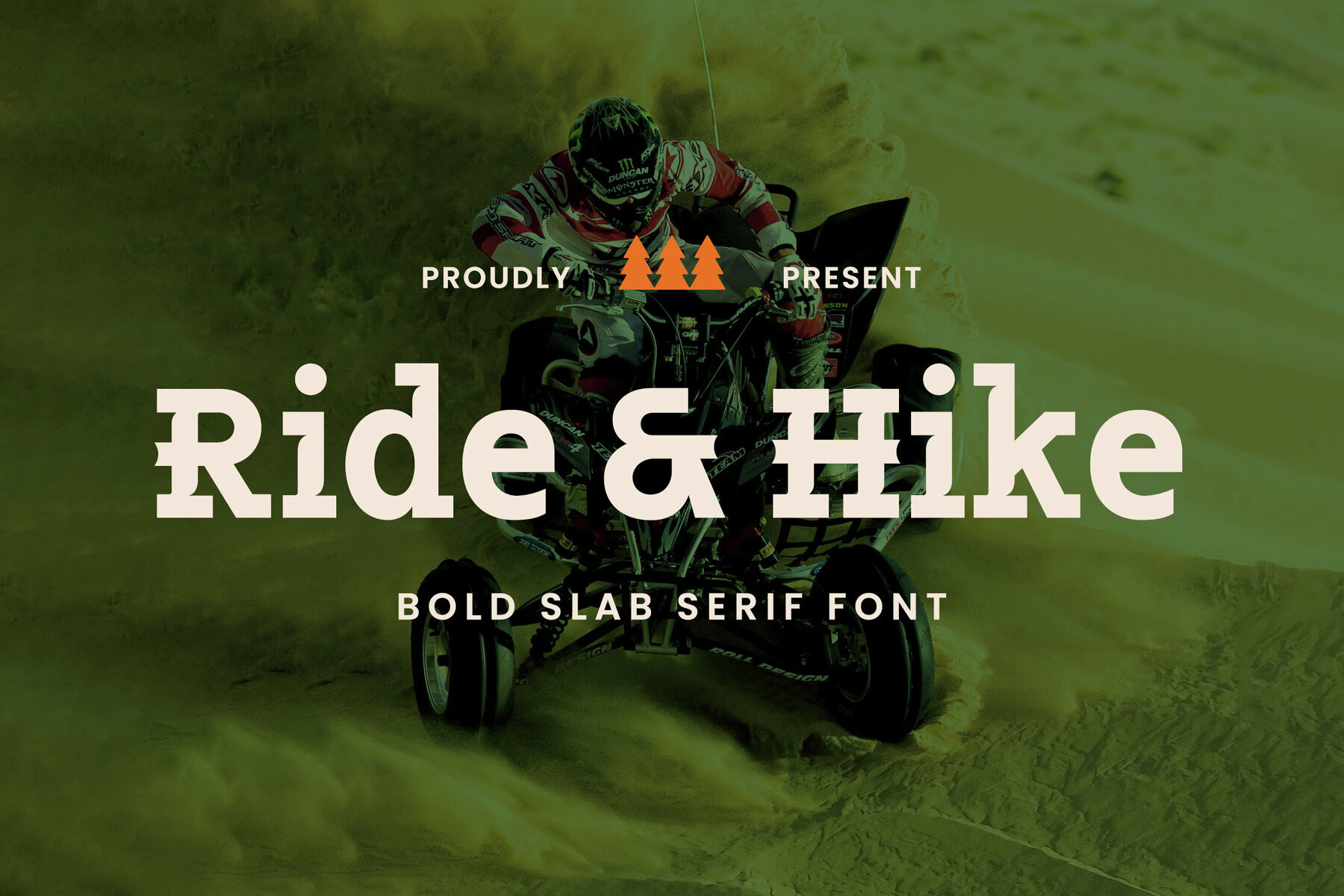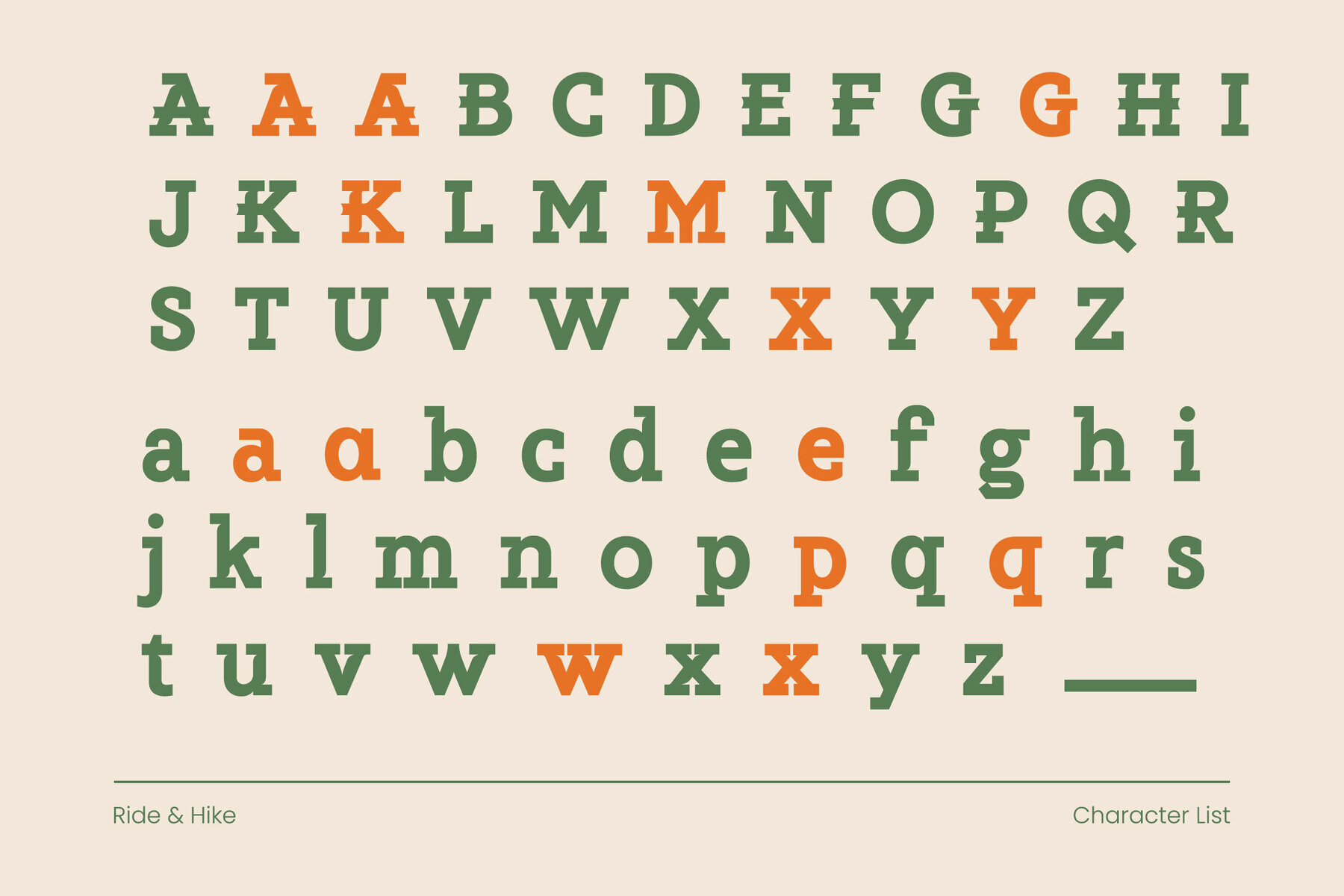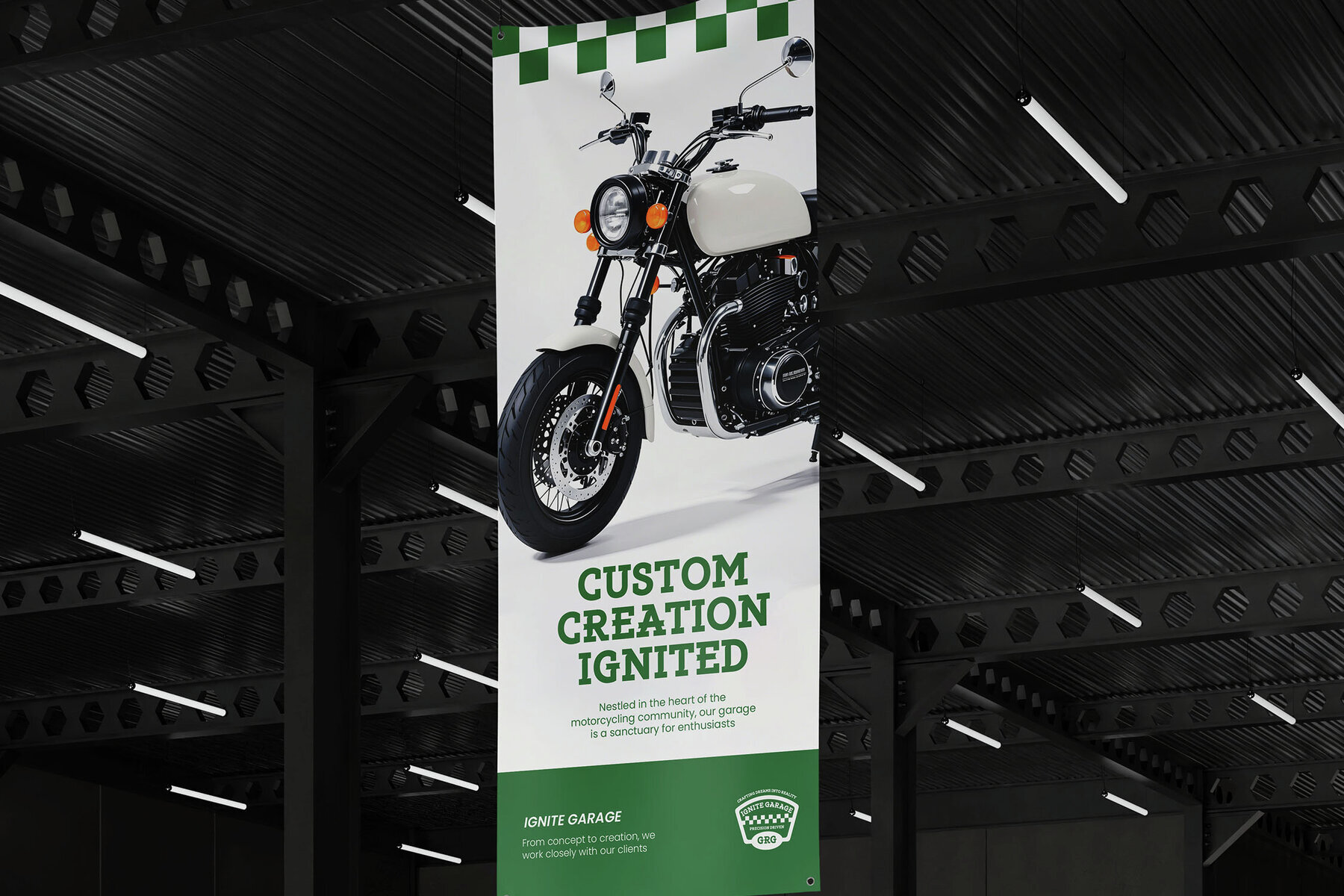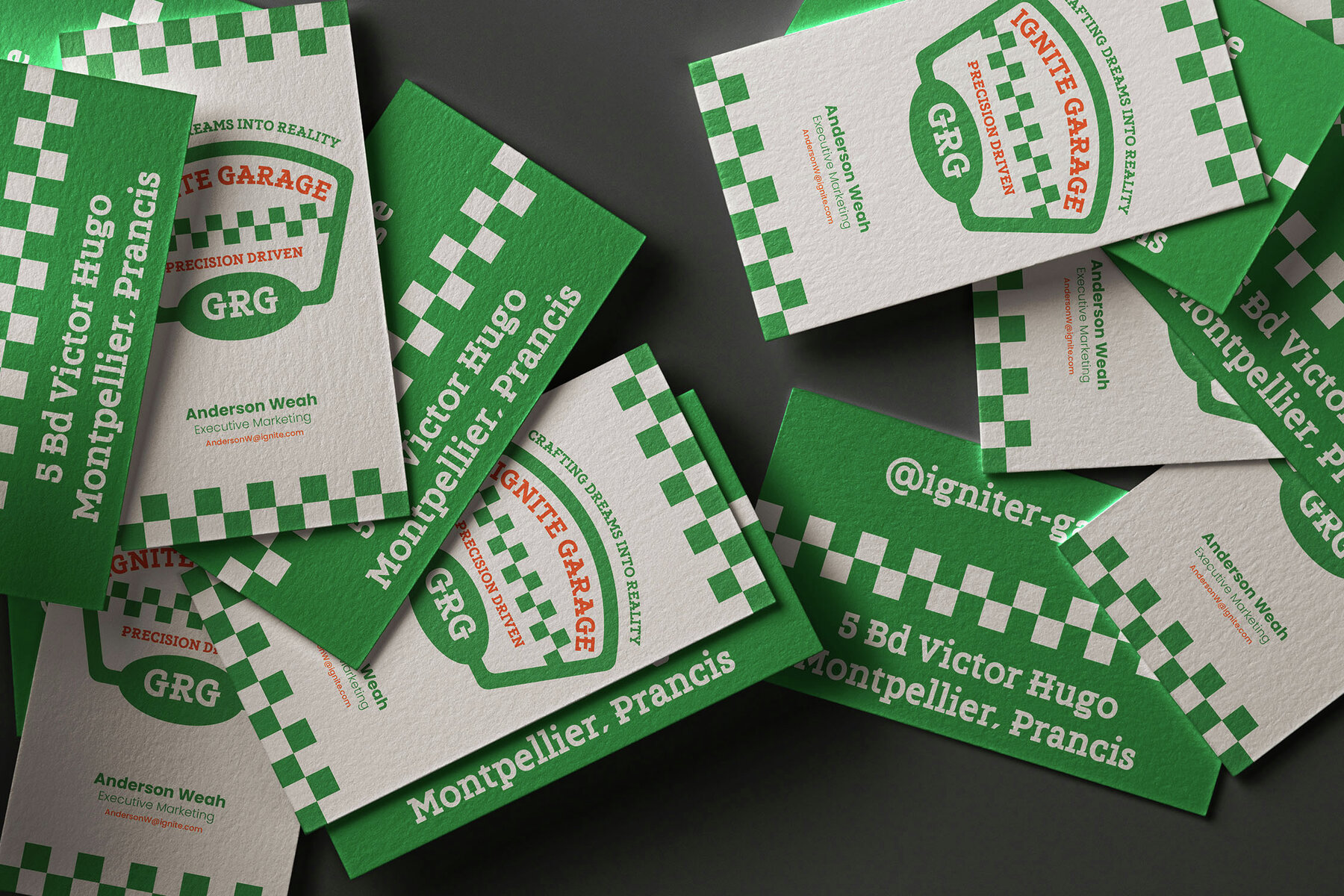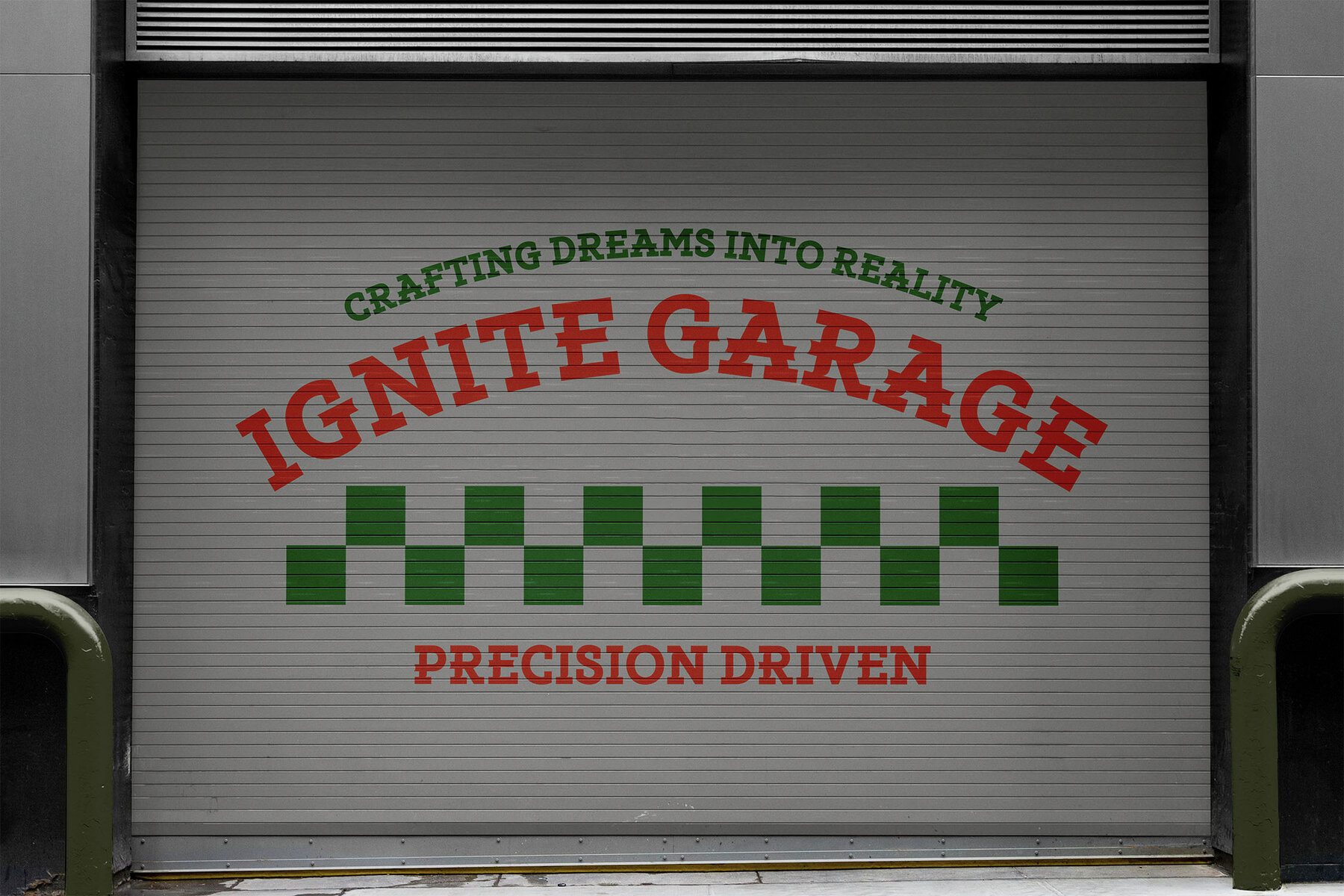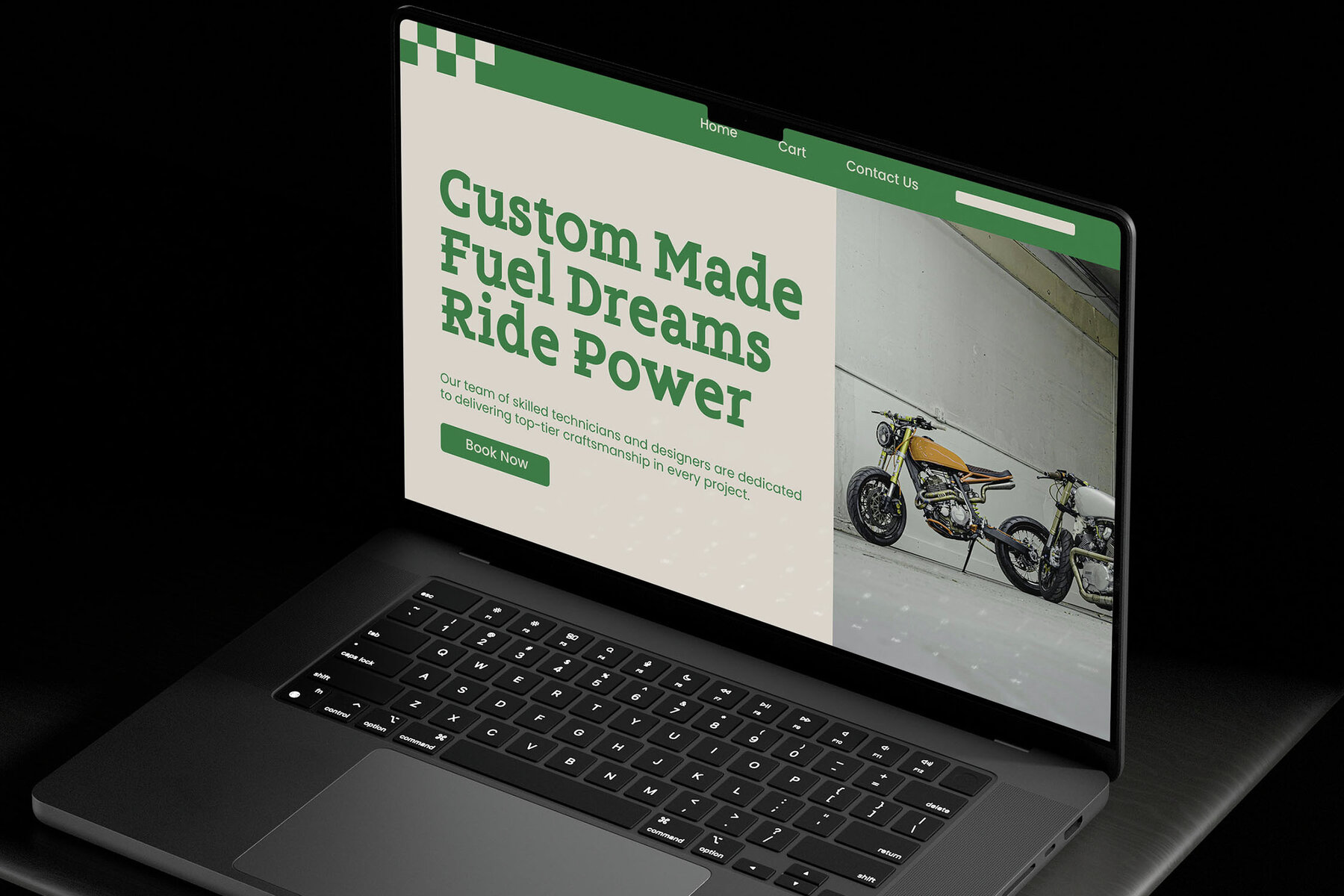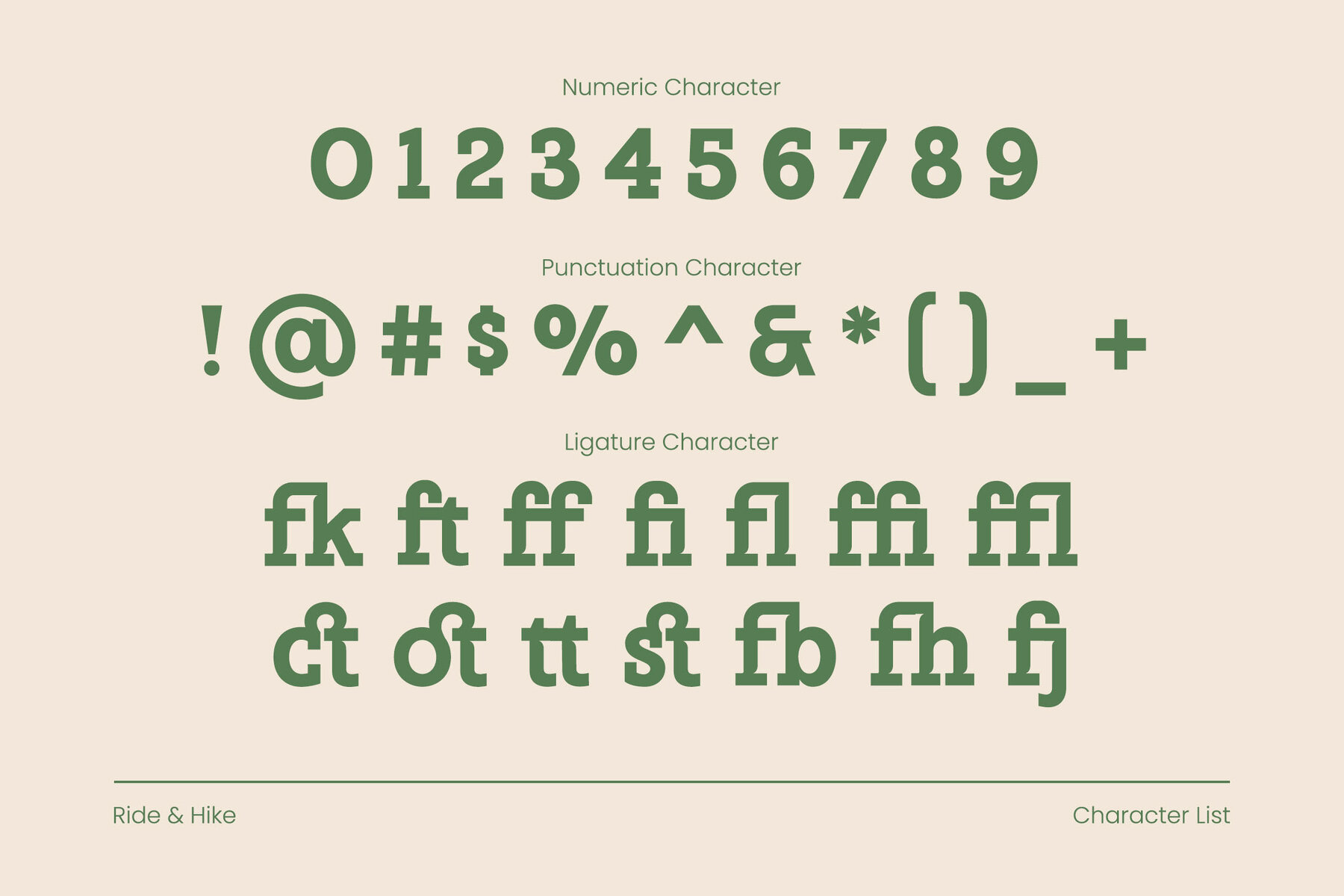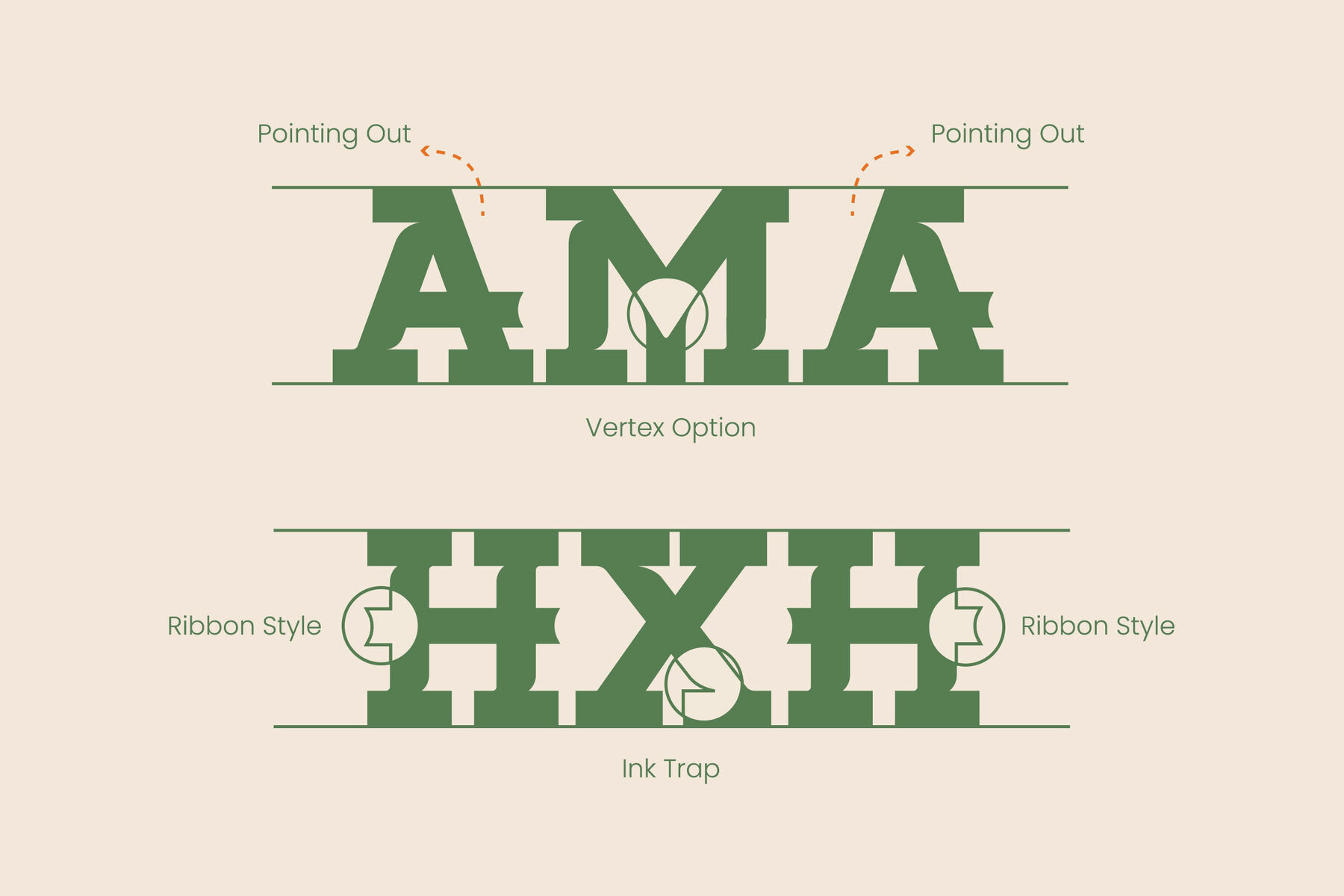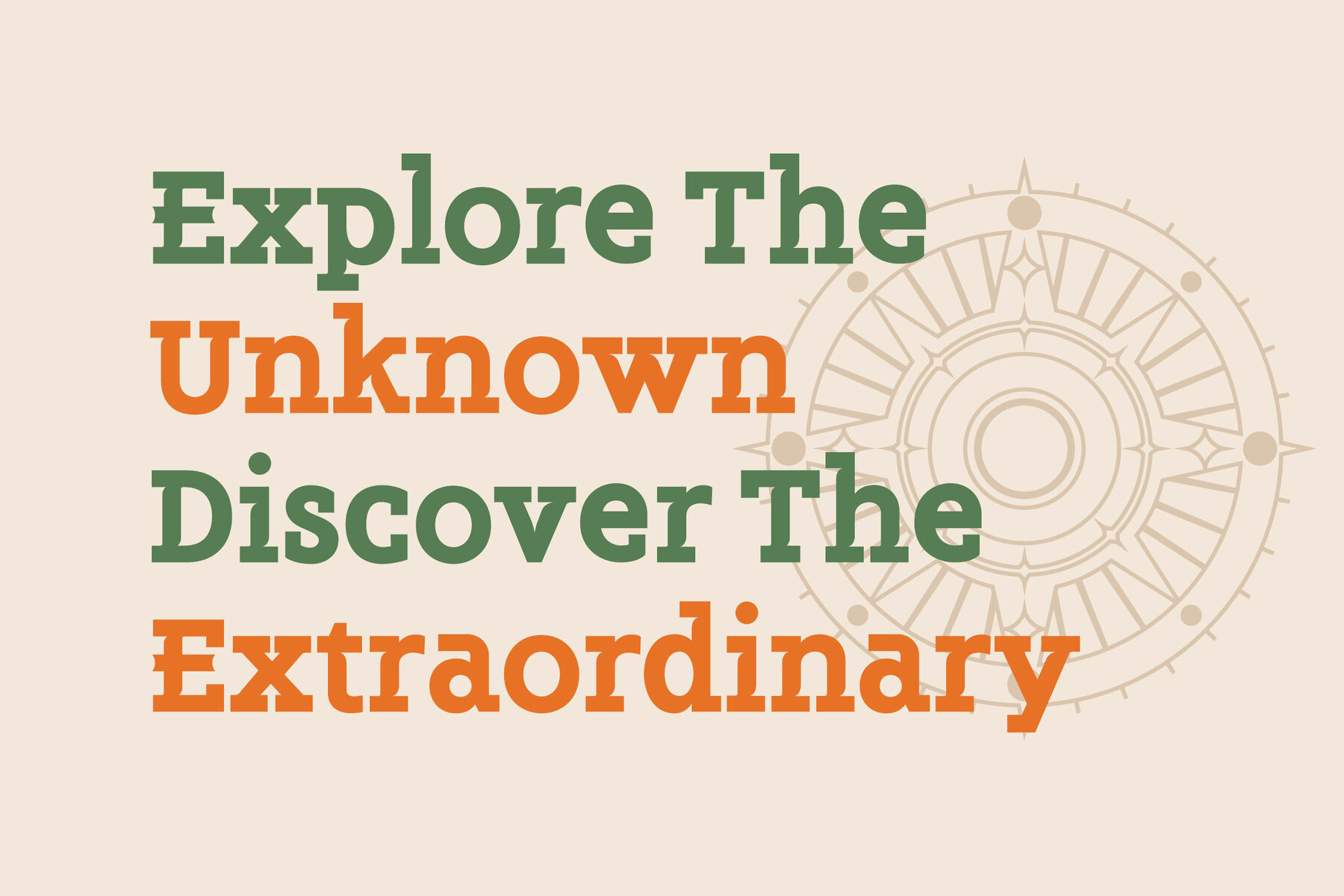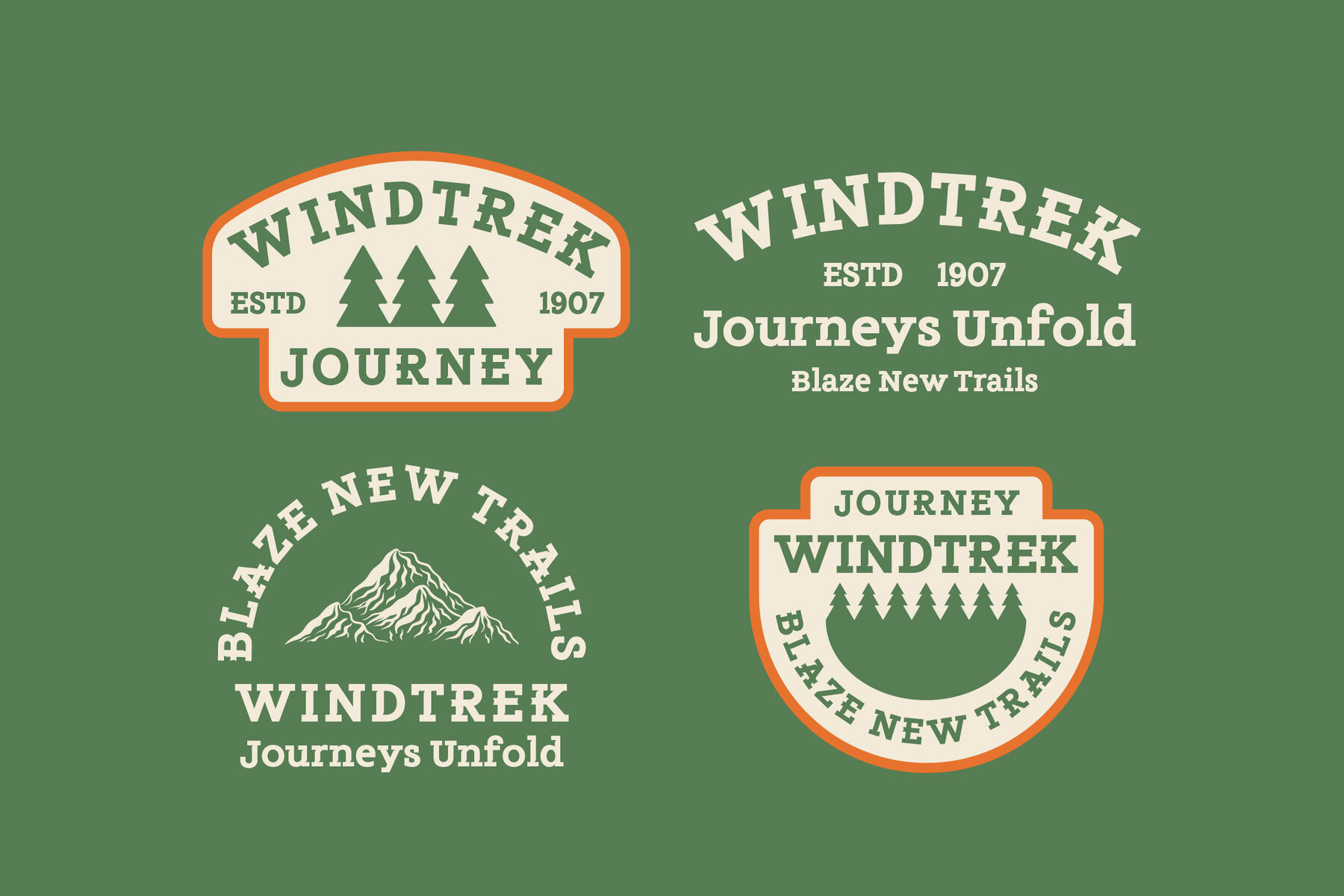
Ride and Hike Font
Ride and Hike Regular
Ride & Hike is a bold slab serif font that embodies strength and boldness. With its robust, blocky design, it's perfect for projects requiring a commanding presence. Ideal for branding, outdoor adventure themes, signage, posters, book covers, editorial design, web design, and merchandise, this font adds a bold and adventurous touch to logos, headlines, and body text in both print and digital formats.
Packed with features to support your creative needs, Ride & Hike includes ligatures for smooth character combinations, a full set of uppercase and lowercase letters, punctuation, numerals, and alternate characters. Its extensive multilingual support makes it a versatile choice for global applications. Designed with meticulous attention to detail, Ride & Hike combines rugged slab serif aesthetics with modern typographic techniques, offering a reliable choice for designers seeking to create captivating designs. Download Ride & Hike now to add a touch of rugged elegance to your projects.